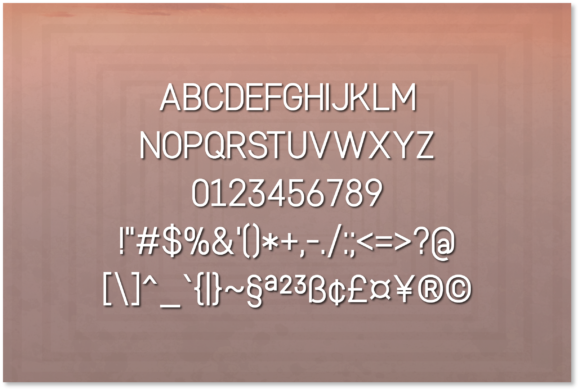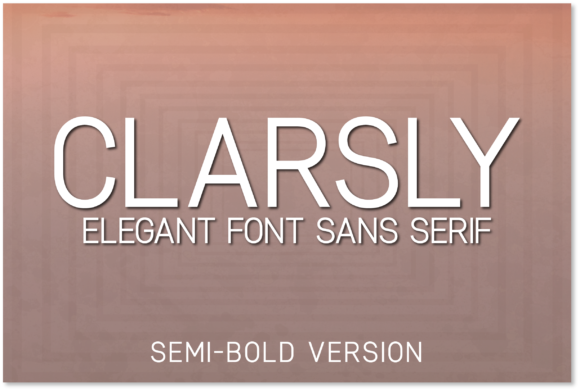
Clarsly Semi-Bold Font
About Clarsly Semi-Bold Font
Clarsly is minimalist and modern, but also elegant. This versatile sans serif font has a wide range of applications ranging from body text to headlines, and is guaranteed to add a timeless touch to your next design.